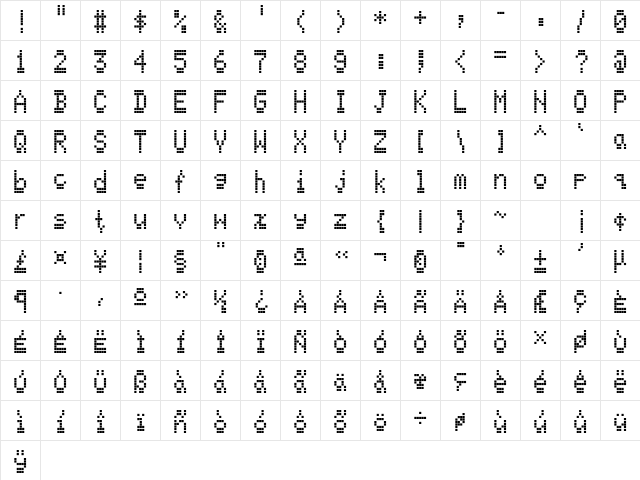
ScreenMatrix RegularCondensed Free Font
ScreenMatrix RegularCondensed
Style: RegularCondensed
Design Context for ScreenMatrix
ScreenMatrix is a composed and adaptable typeface that performs quietly and consistently across a wide range of design contexts. Its narrow stance lets it pack a punch even in space-constrained designs.